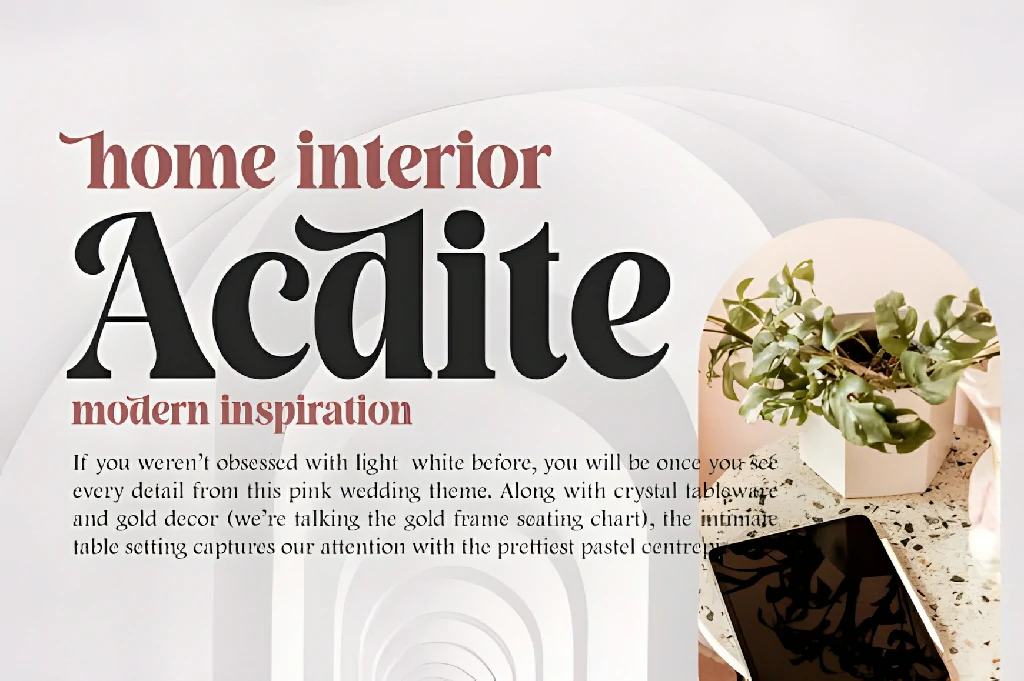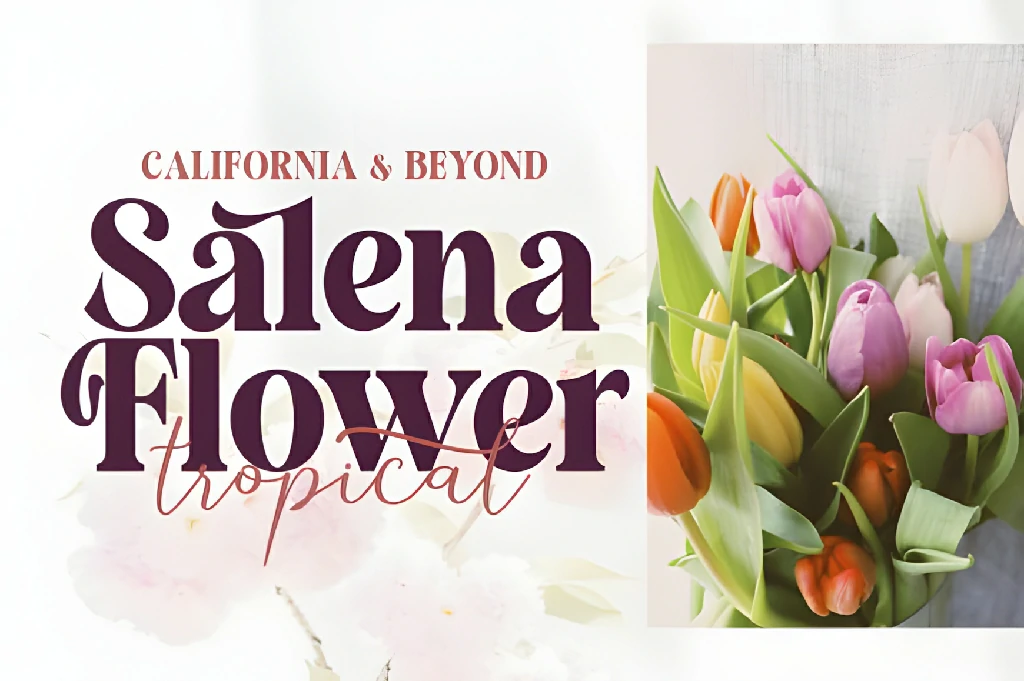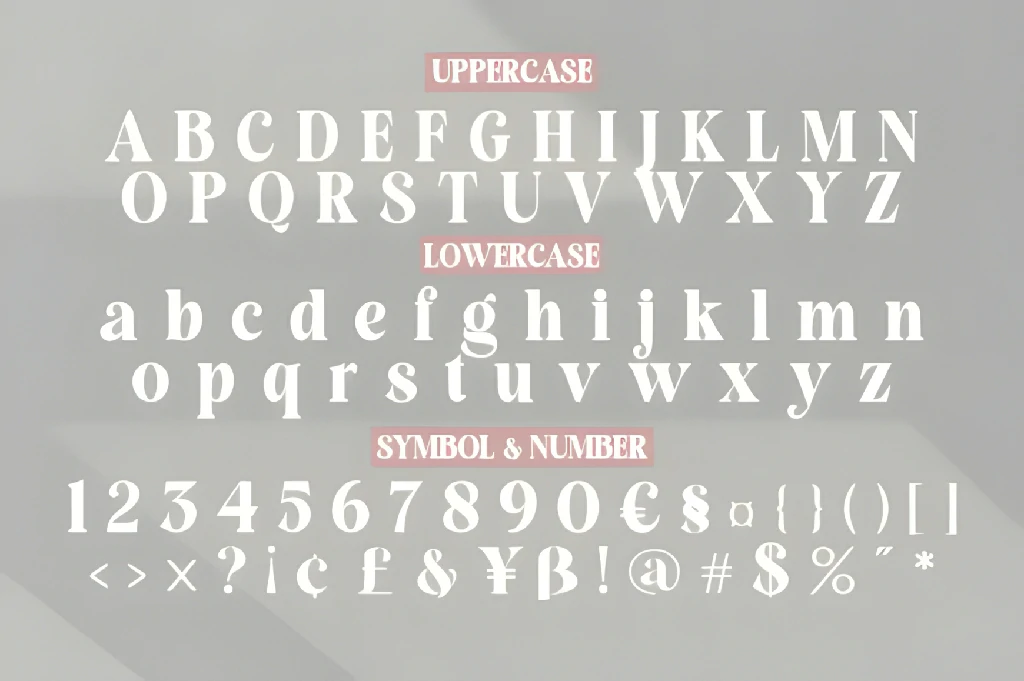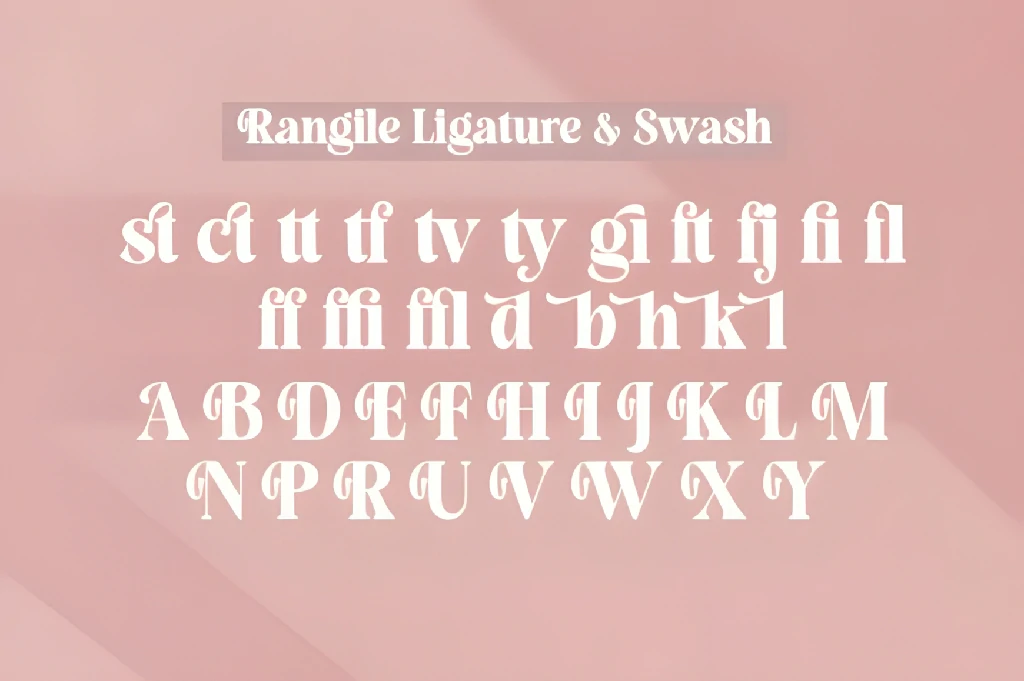
Welcome to Rangile! We are thrilled to introduce our brand-new elegant serif font. Rangile blends natural beauty with refined style, creating a look that feels both graceful and modern. If you’re looking for serif fonts that stand out, Rangile is the perfect choice to bring a touch of charm and class to your creative work.
This font was carefully designed to capture the essence of sophistication while still feeling organic and natural. Its clean lines and soft curves make it ideal for stylish branding, logos, and invitations. Whether you’re designing for digital or print, Rangile adapts beautifully across all platforms, adding a polished touch to your visual content.
Perfect for a wide range of uses, Rangile works wonderfully for advertising, photography watermarks, social media graphics, product packaging, labels, wedding stationery, and more. It’s the go-to font when you want to set the tone for something truly special and elegant.